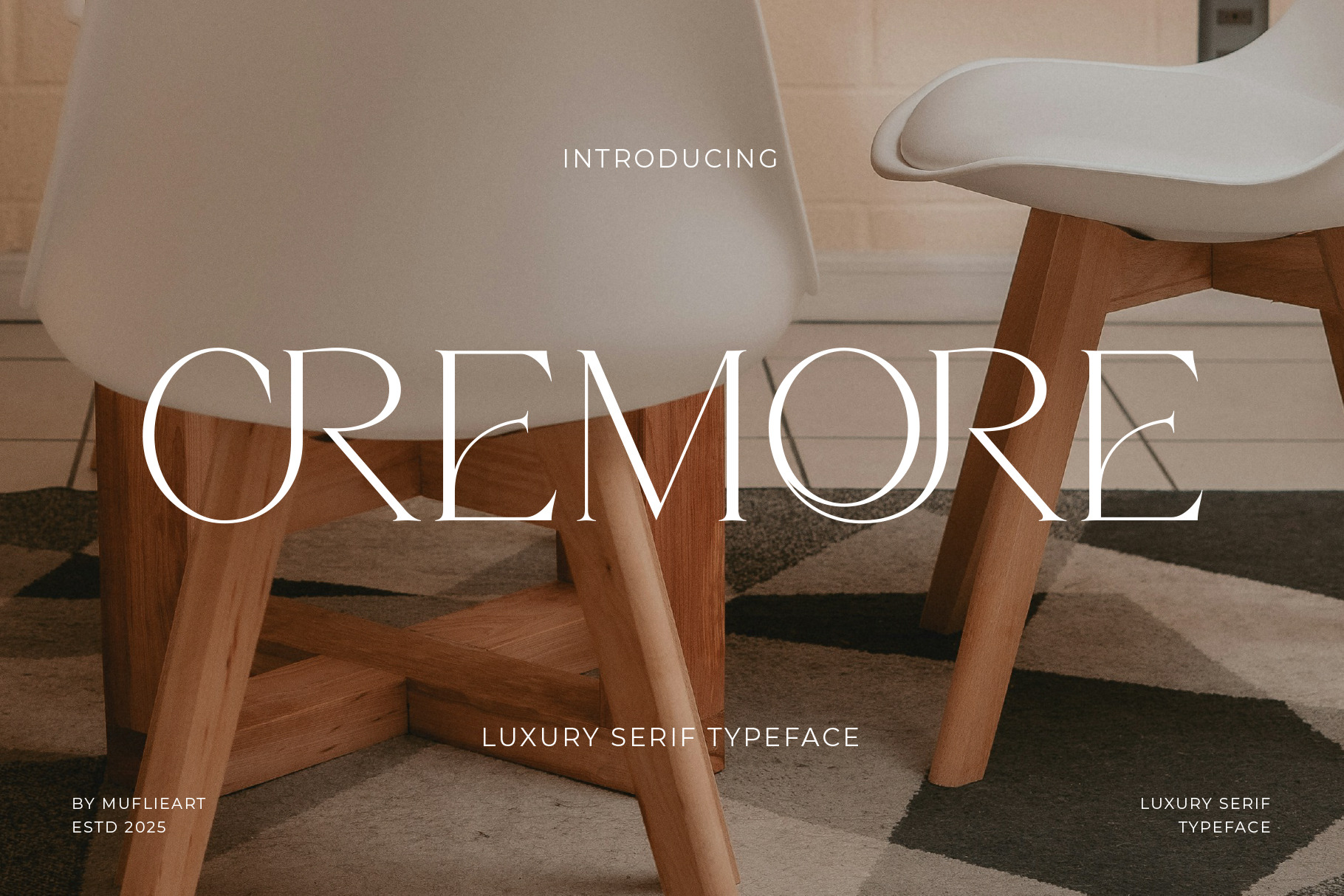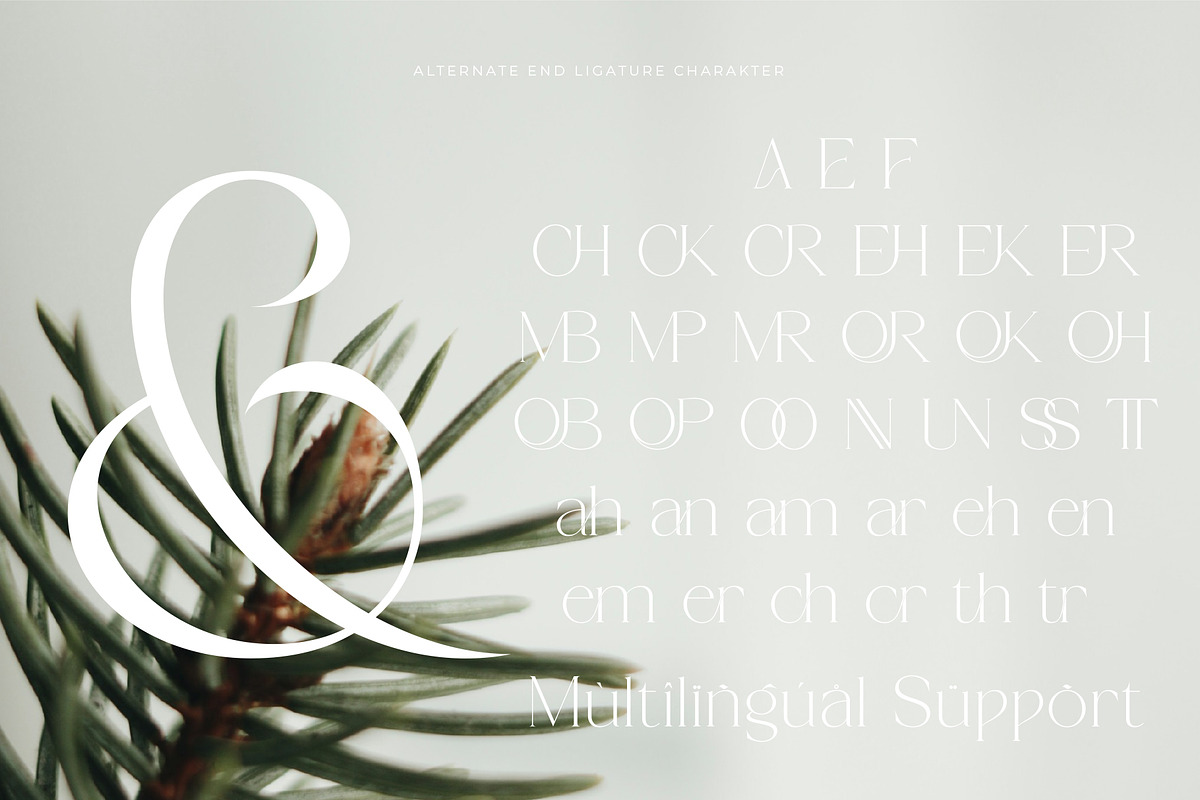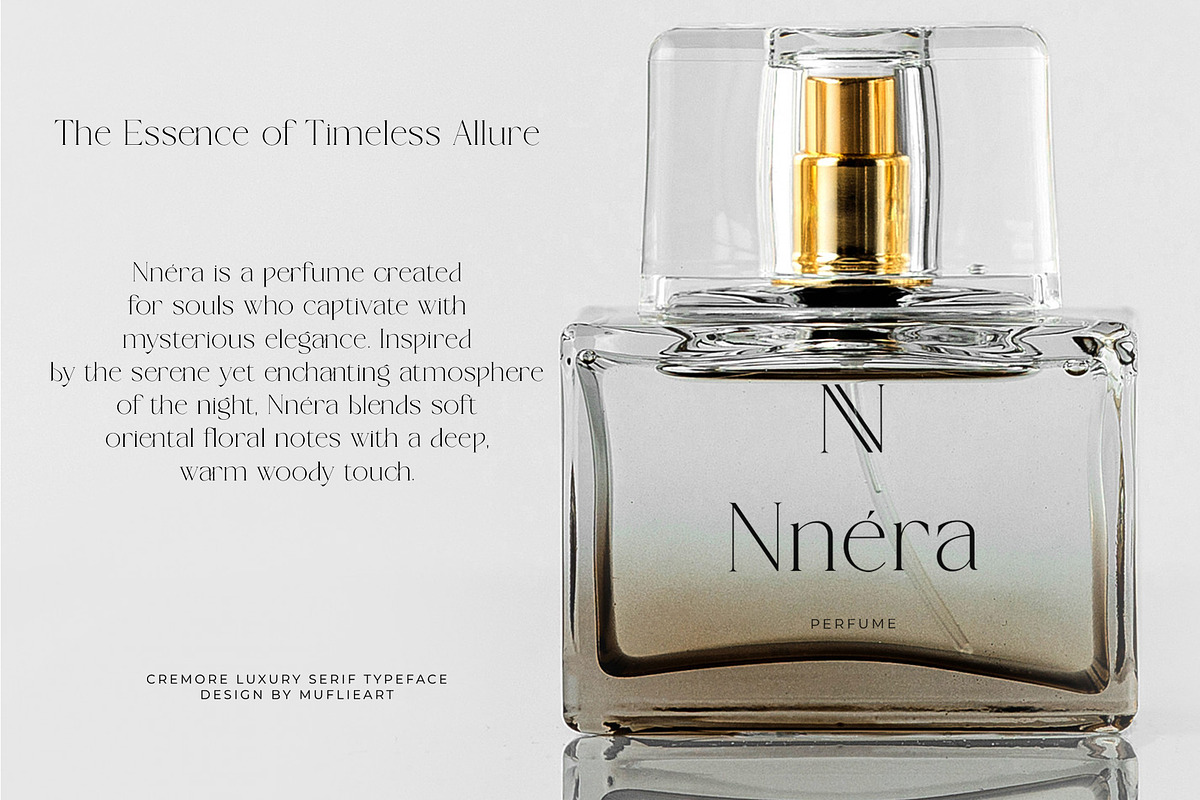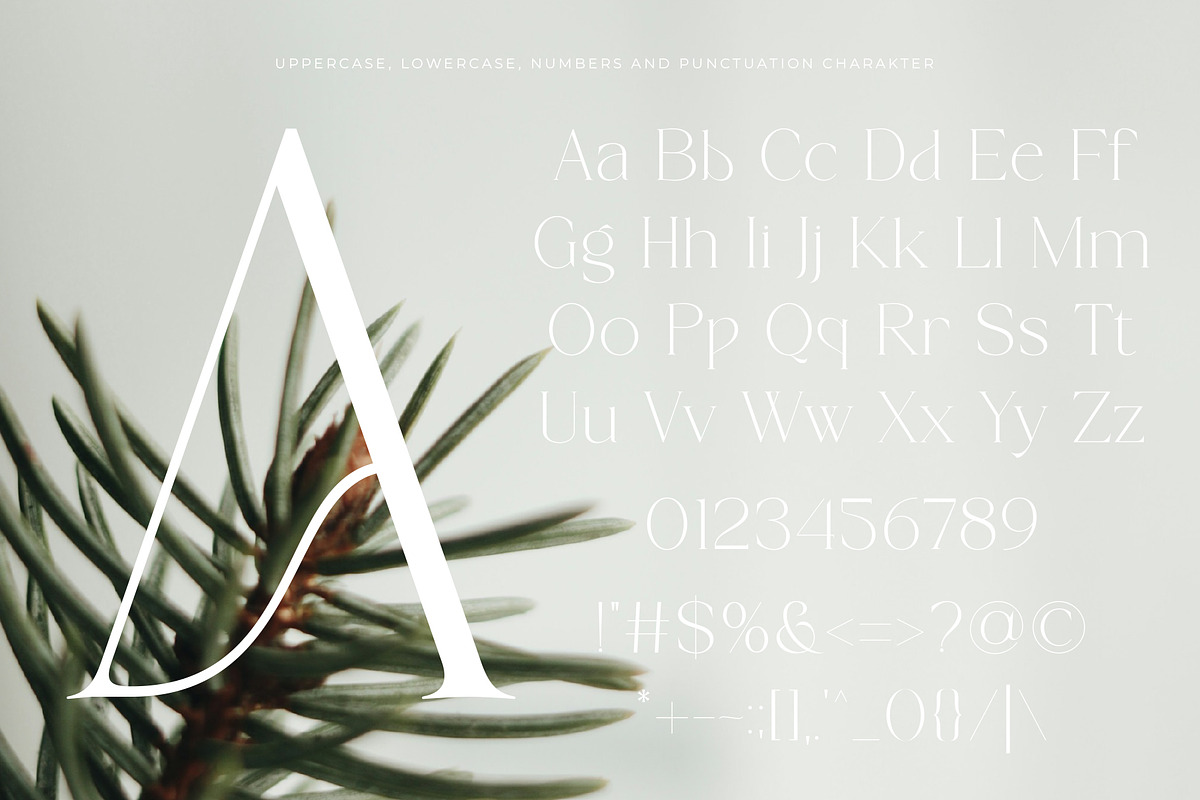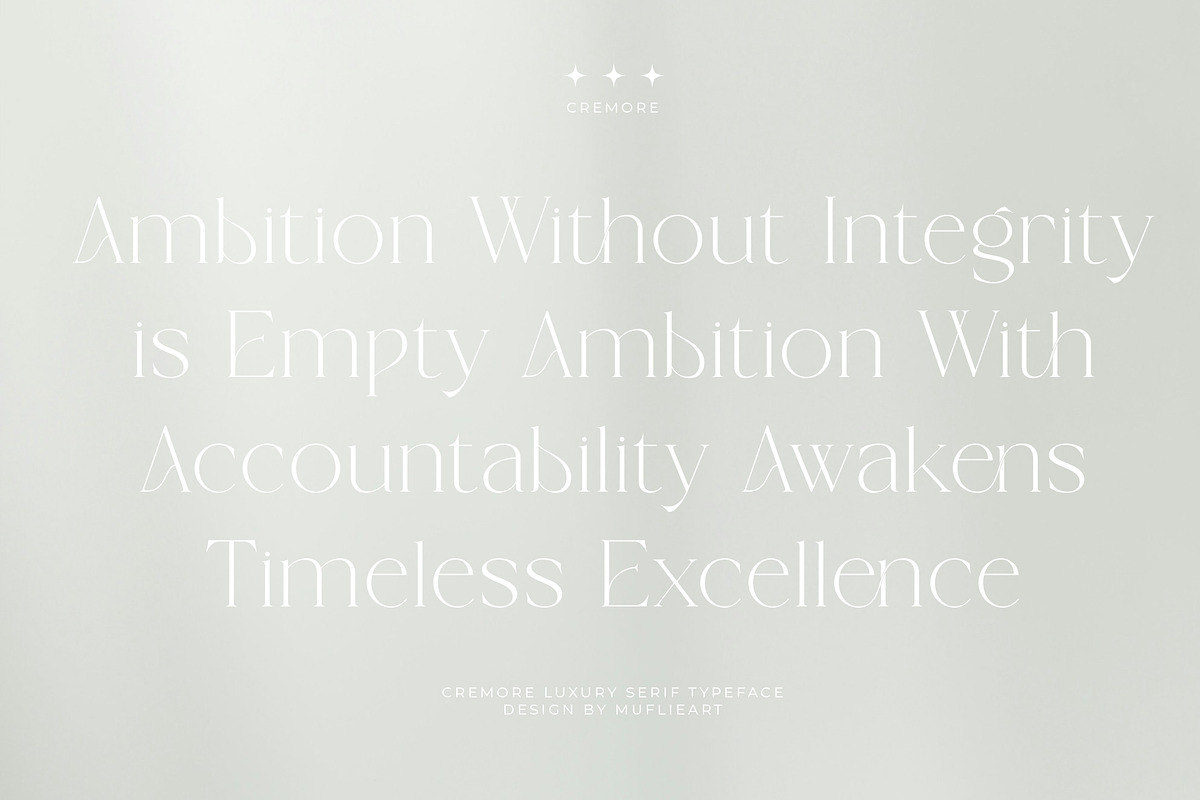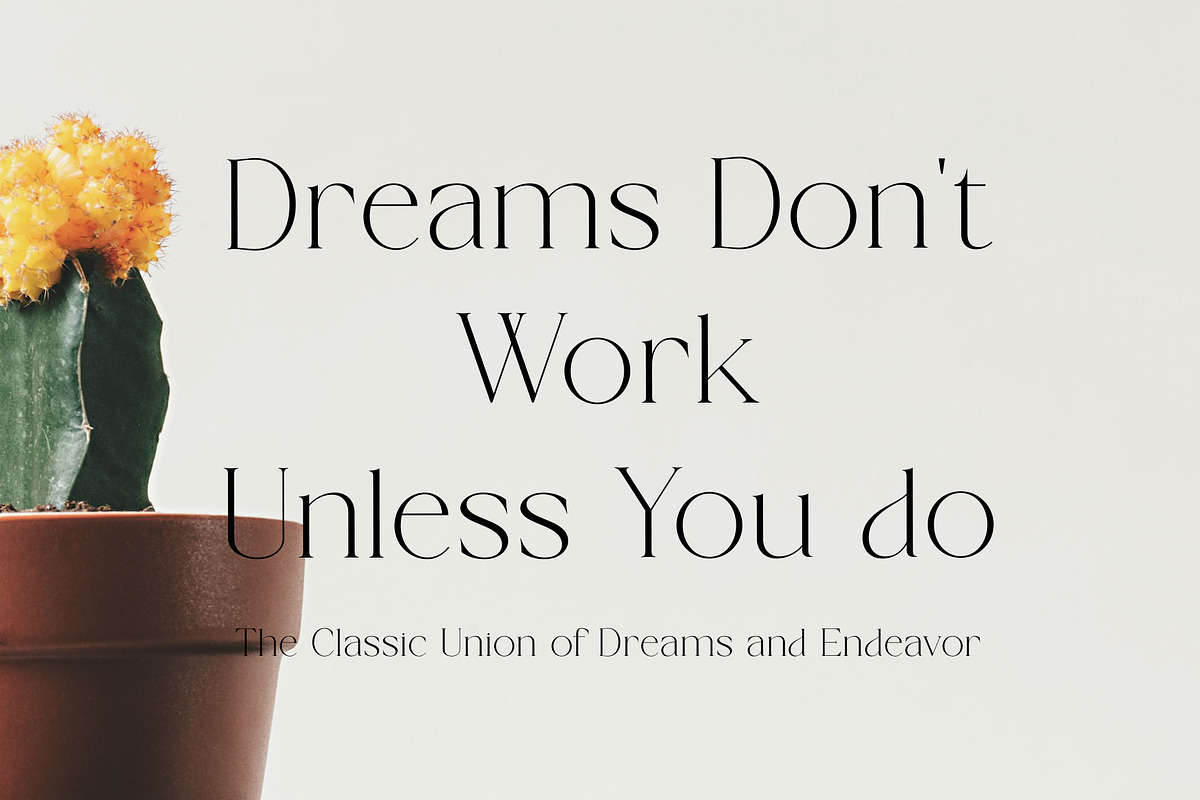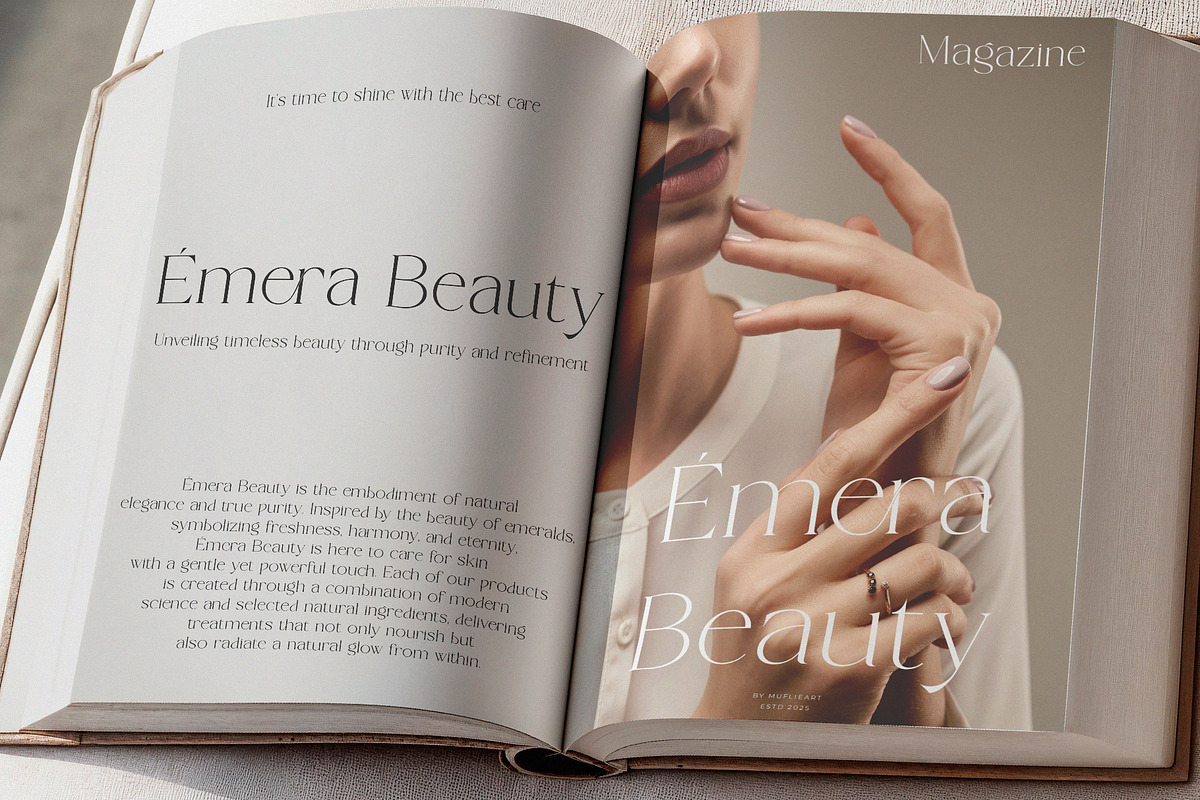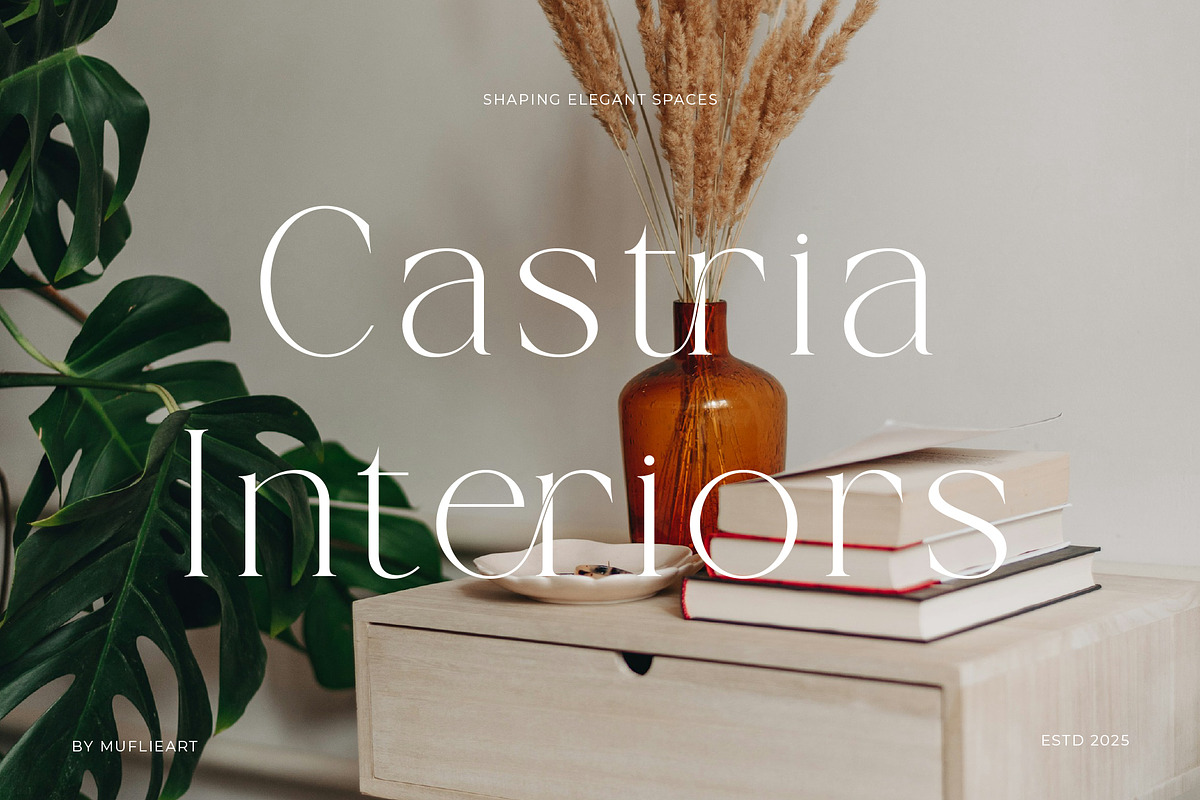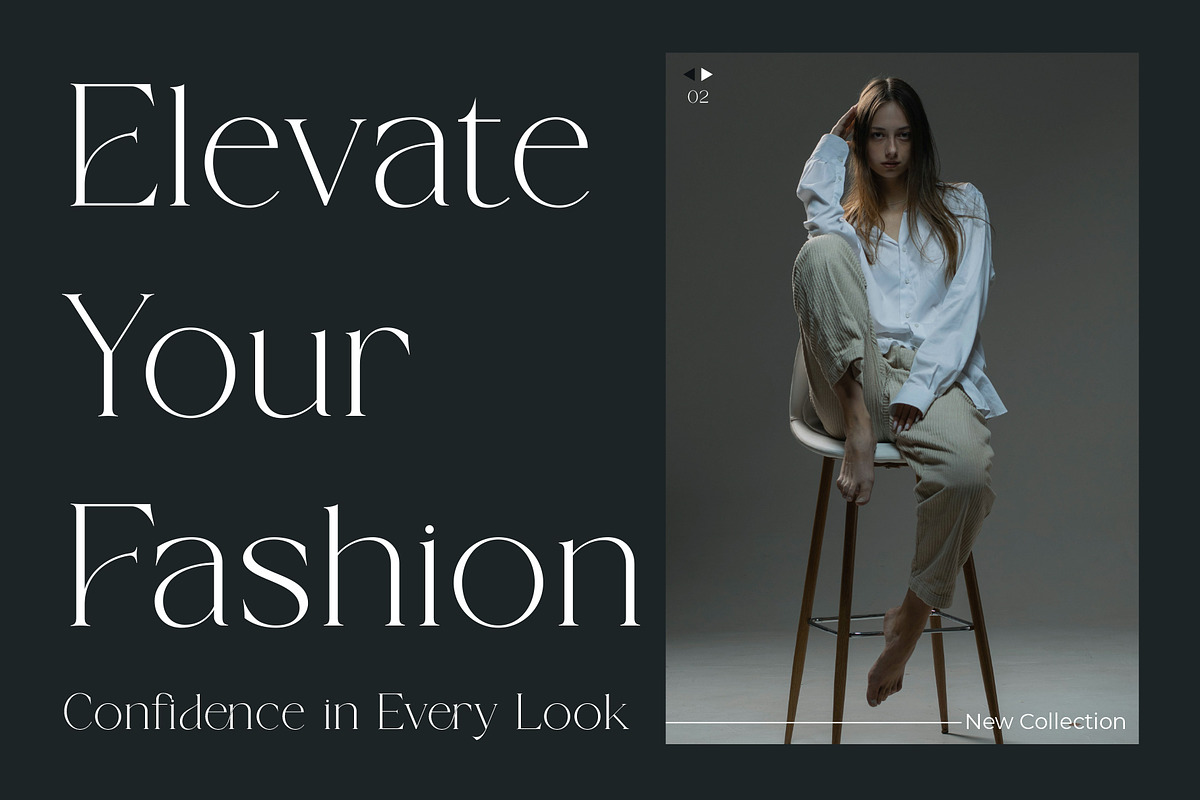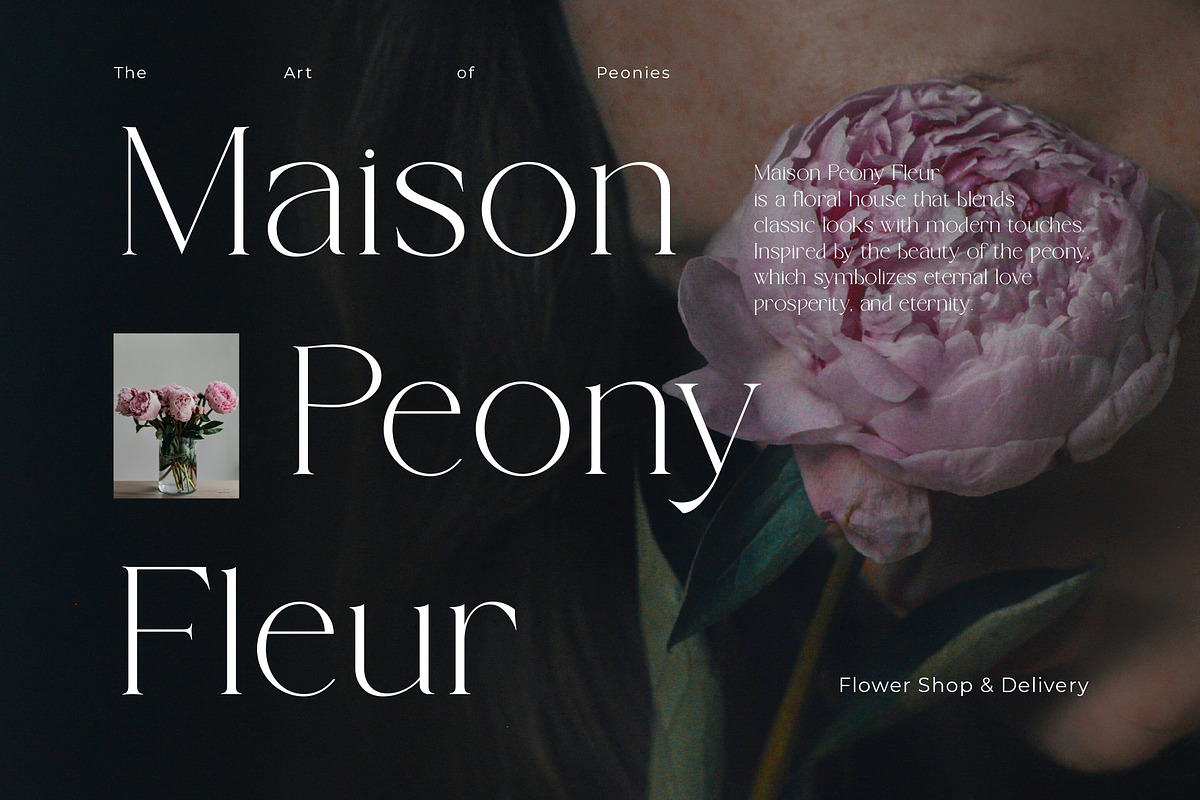
Cremore - Luxury Serif Typeface
Introducing Cremore An elegant, beautiful and modern serif. With its modern and minimalist appearance, Cremore brings a luxurious, classy and clean style to your projects such as websites, modern logos, branding identities, social media quotes, wedding stationery, magazines and various other needs!
Cremore displays unique and classy capital letters A to Z and is also equipped with alternative letters and unique ligatures so that Cremore is a beautiful font that can be adapted to various projects and jobs that you want.
FEATURE:
- Uppercase and lowercase letters
- Multilingual Characters
- Alternative styles and ligatures (on some fonts)